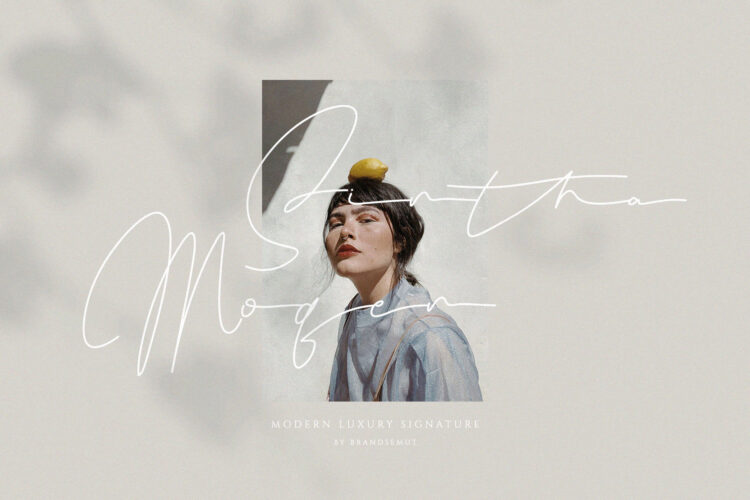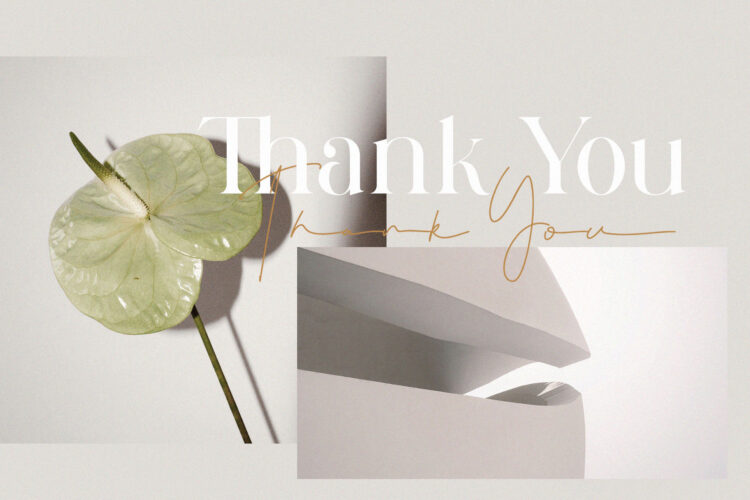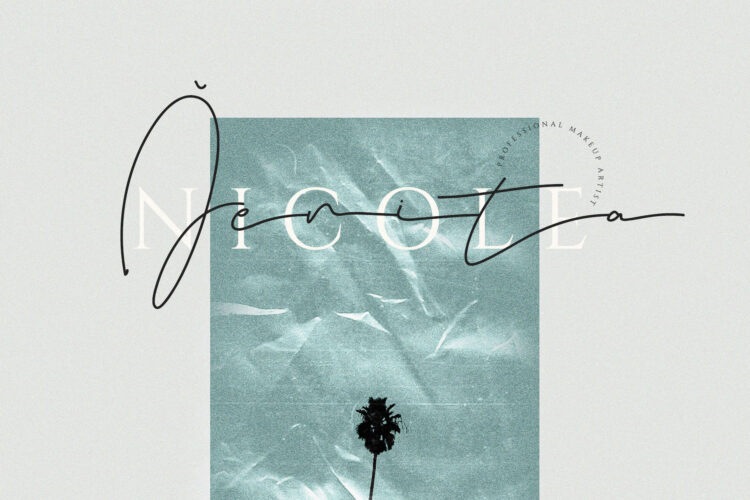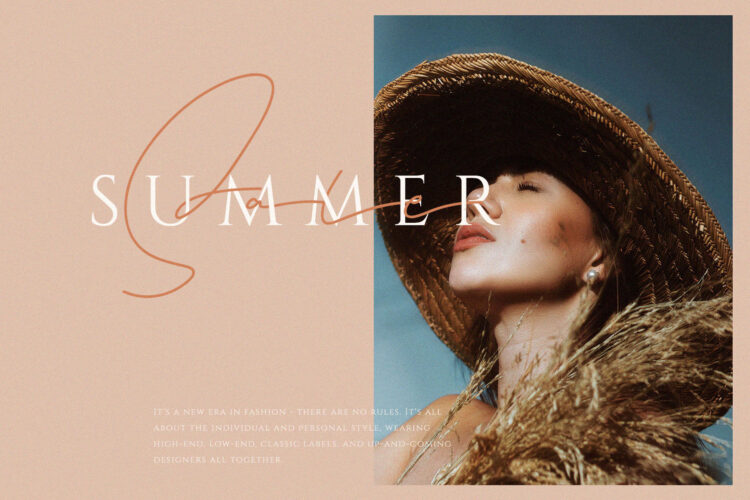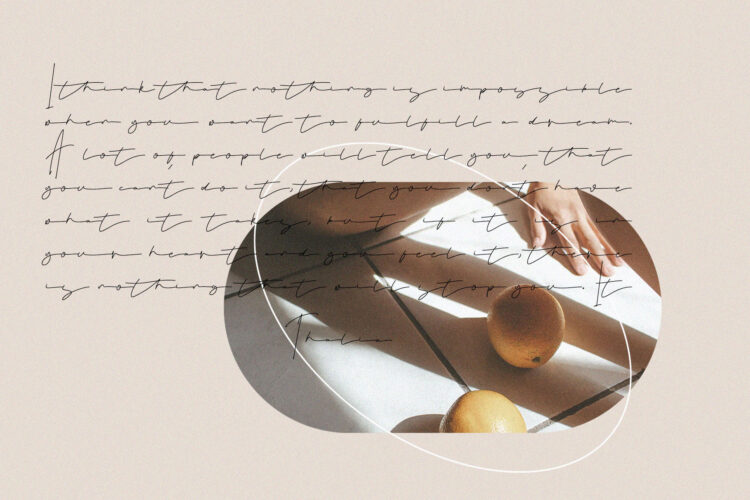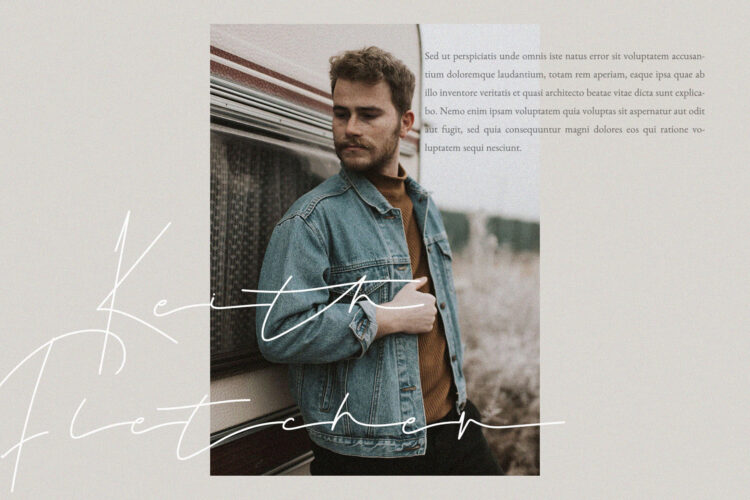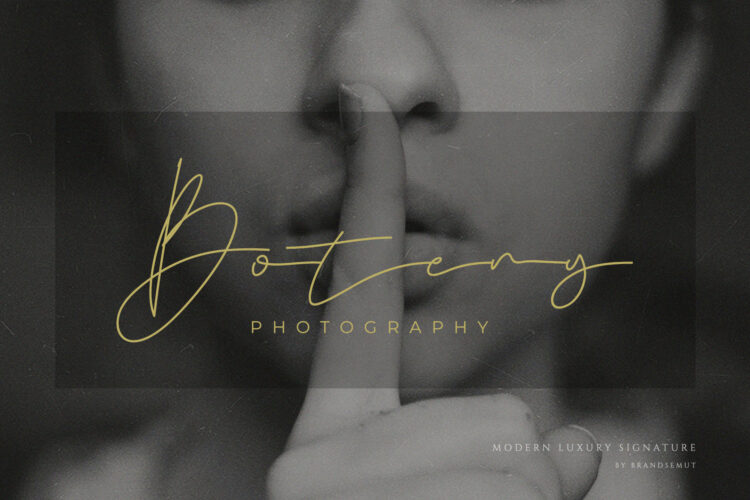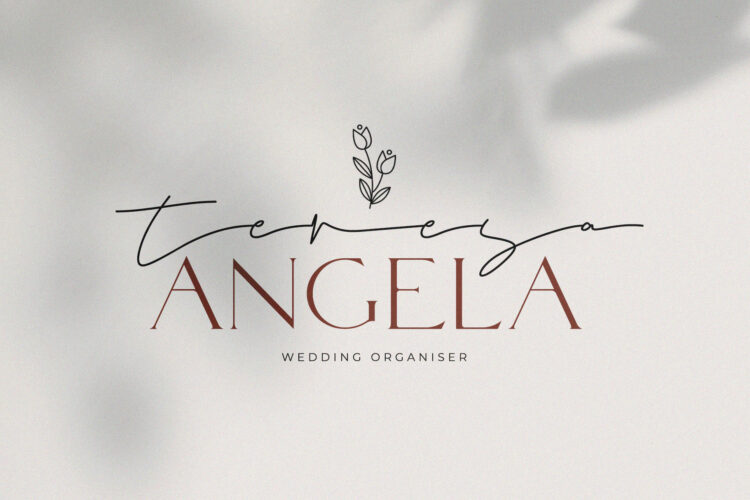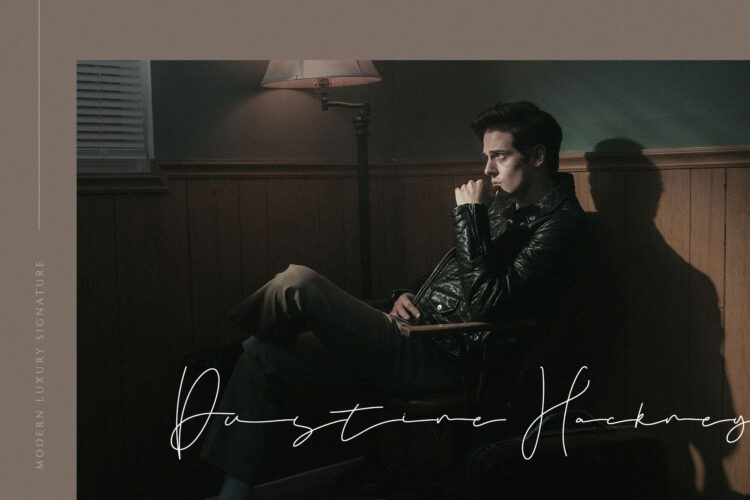
Introducing the new Sintha Moqen Signature font is a feminine type Handwritten with a monoline script, that you can use to perfect your design.
Sintha Moqen – Elegant Signature Script